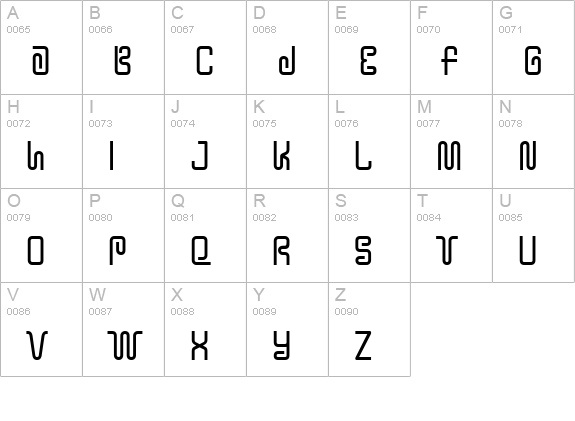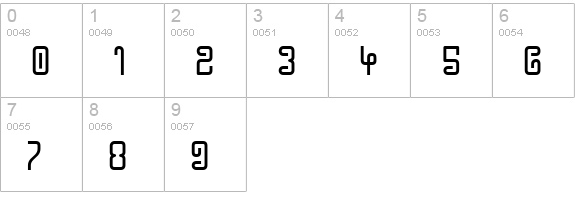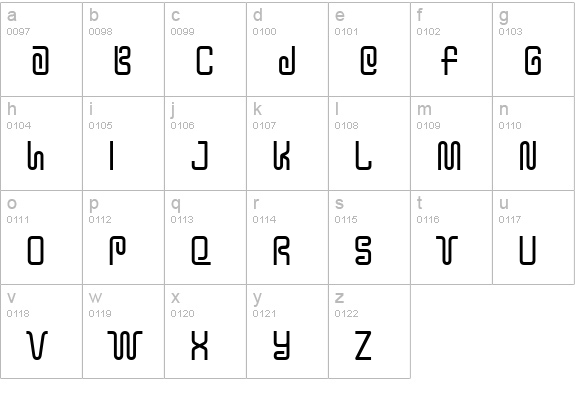
!Y2KBUG Font Details
Introducing the captivating !Y2KBUG font, a unique and eye-catching display typeface that beautifully captures the essence of the Y2K era. This font features a delightful blend of retro and futuristic elements, making it perfect for a wide range of creative projects. With its bold and quirky design, !Y2KBUG adds a touch of nostalgia and personality to any design it graces. What makes !Y2KBUG even more appealing is that it is freely available to download at FontsMarket.com. This means that you can easily access this stylish font and incorporate it into your designs without any hassle. Whether you're working on branding, posters, social media graphics, or any other project, !Y2KBUG is sure to make a lasting impression. Embrace the playful charm of the Y2K era with !Y2KBUG font and let your creativity shine with this versatile and exciting typeface. Download it for free today and elevate your designs to a whole new level!